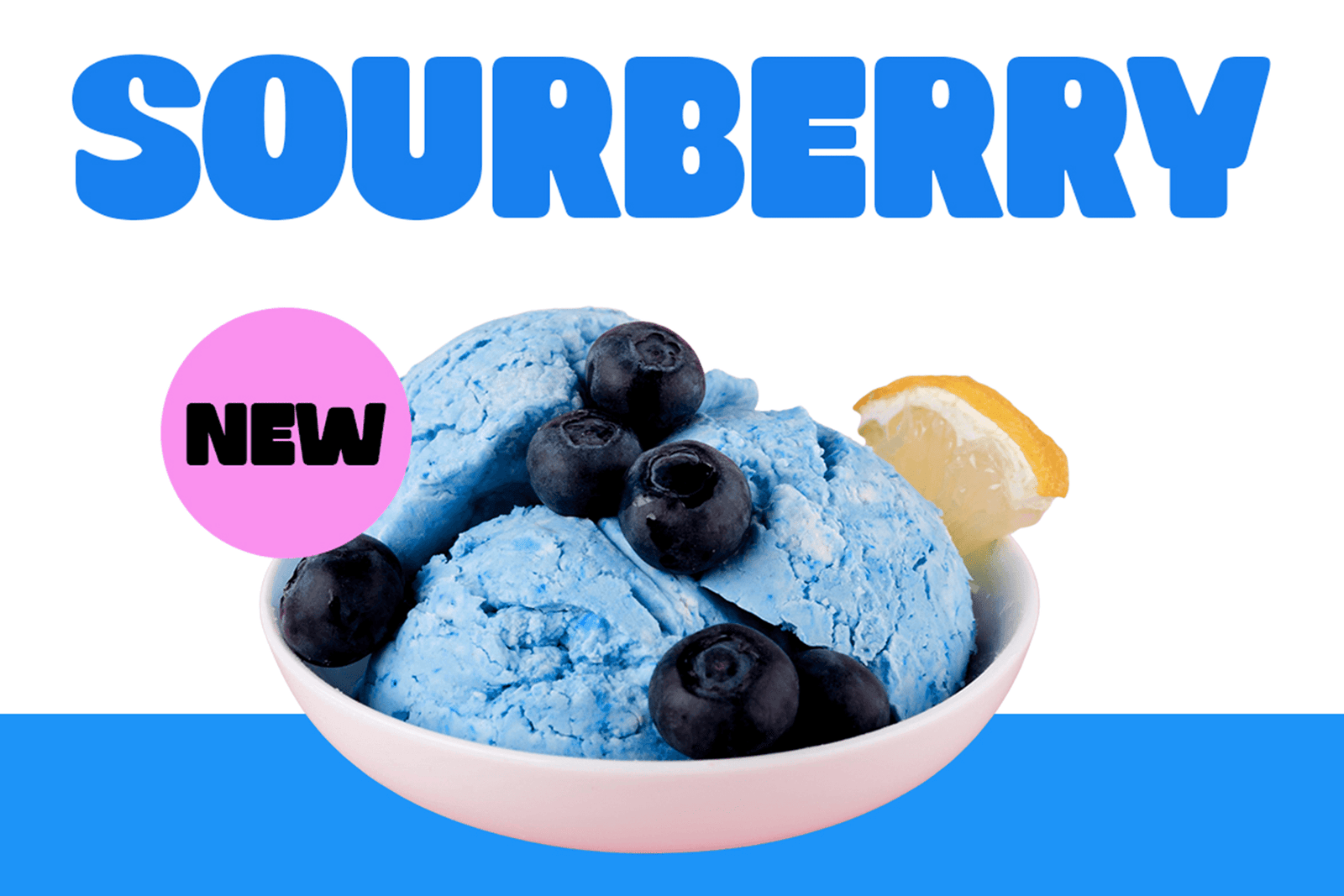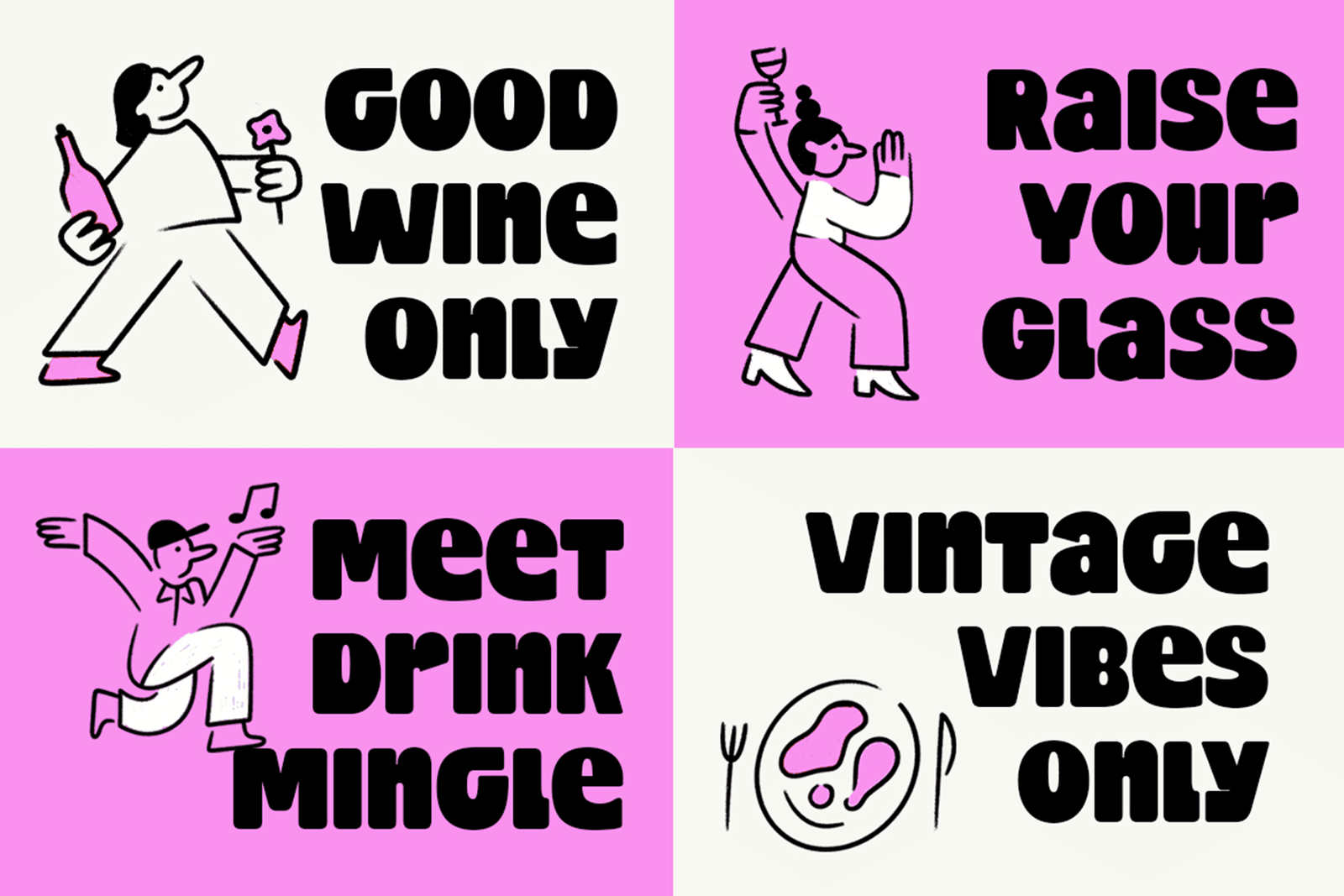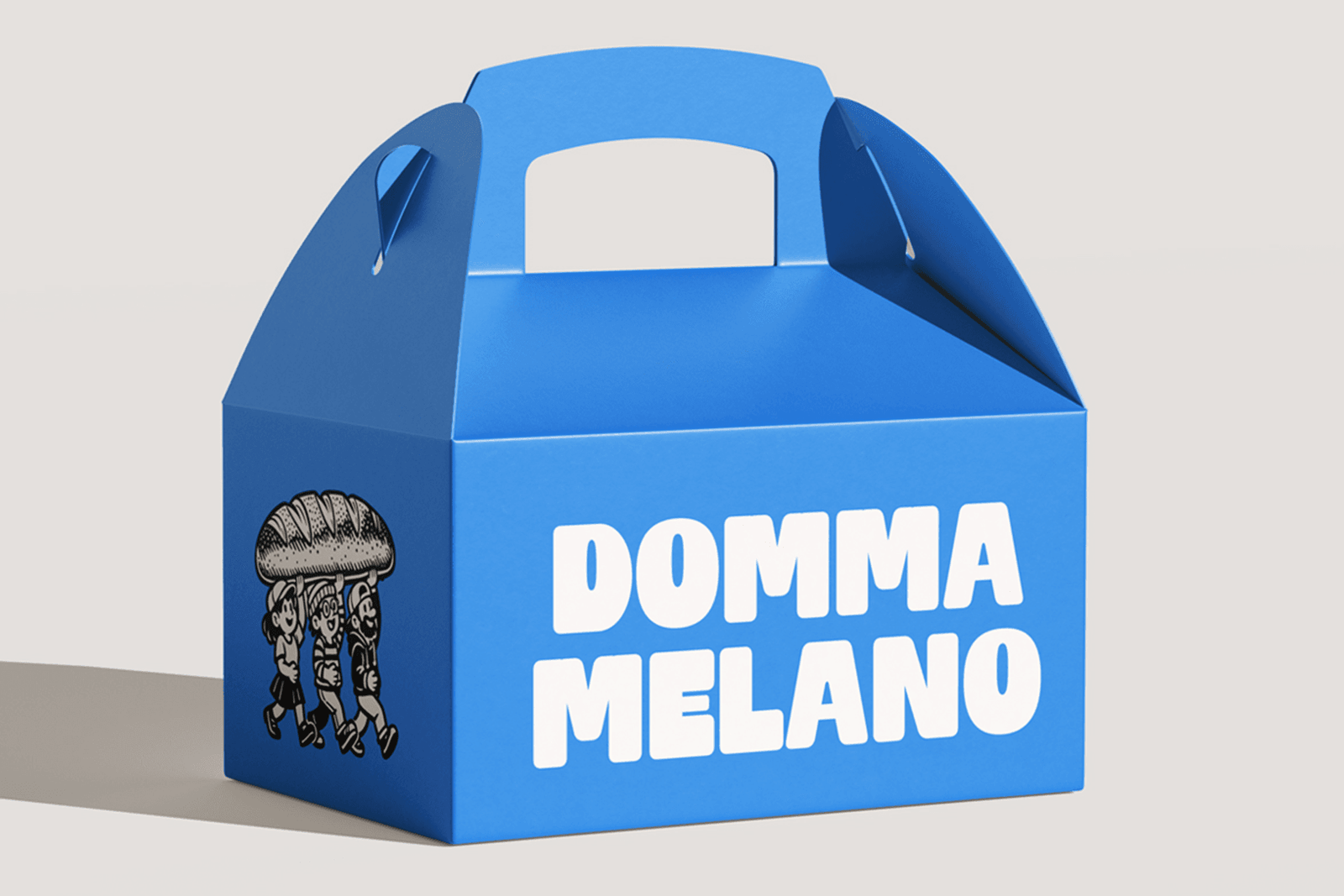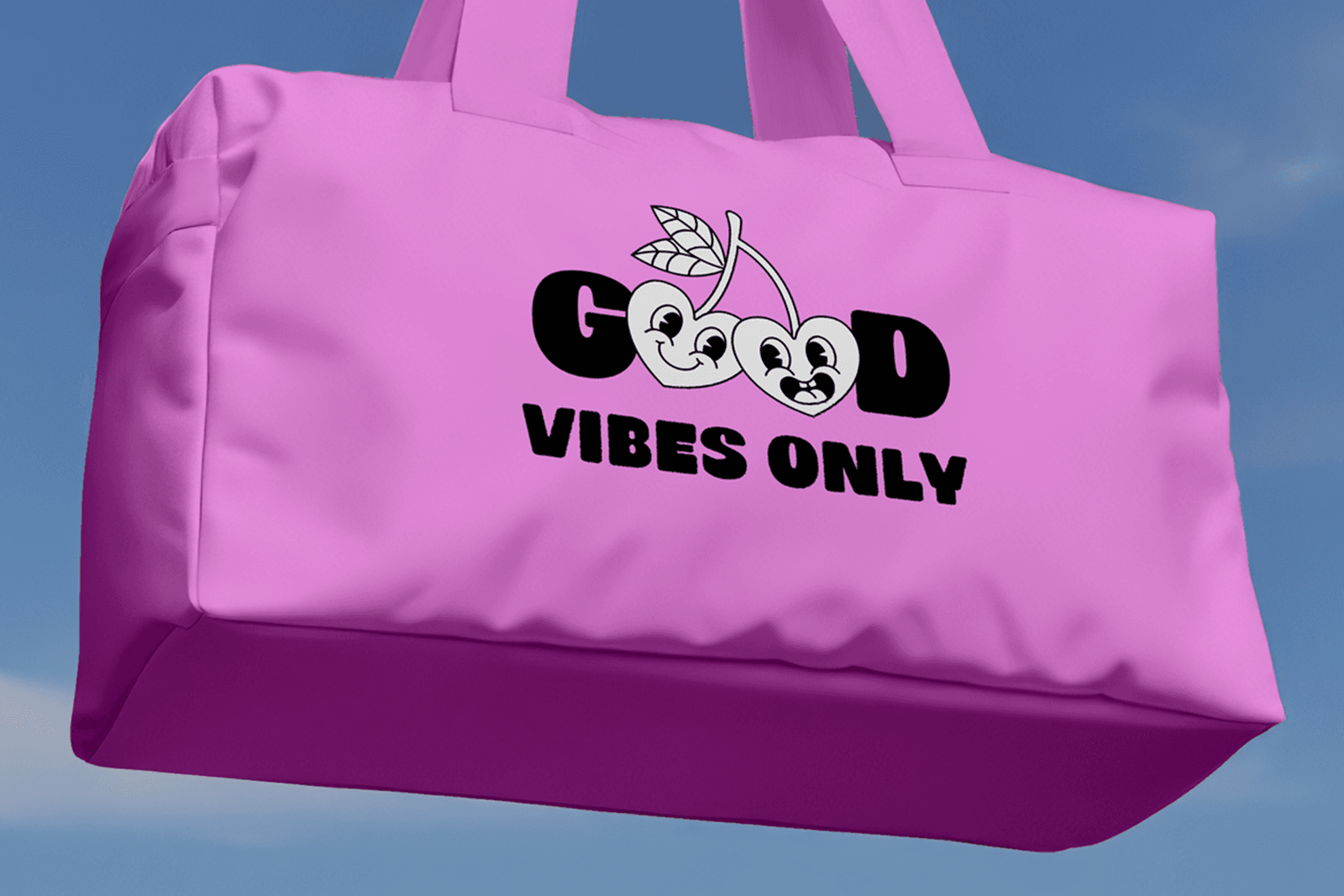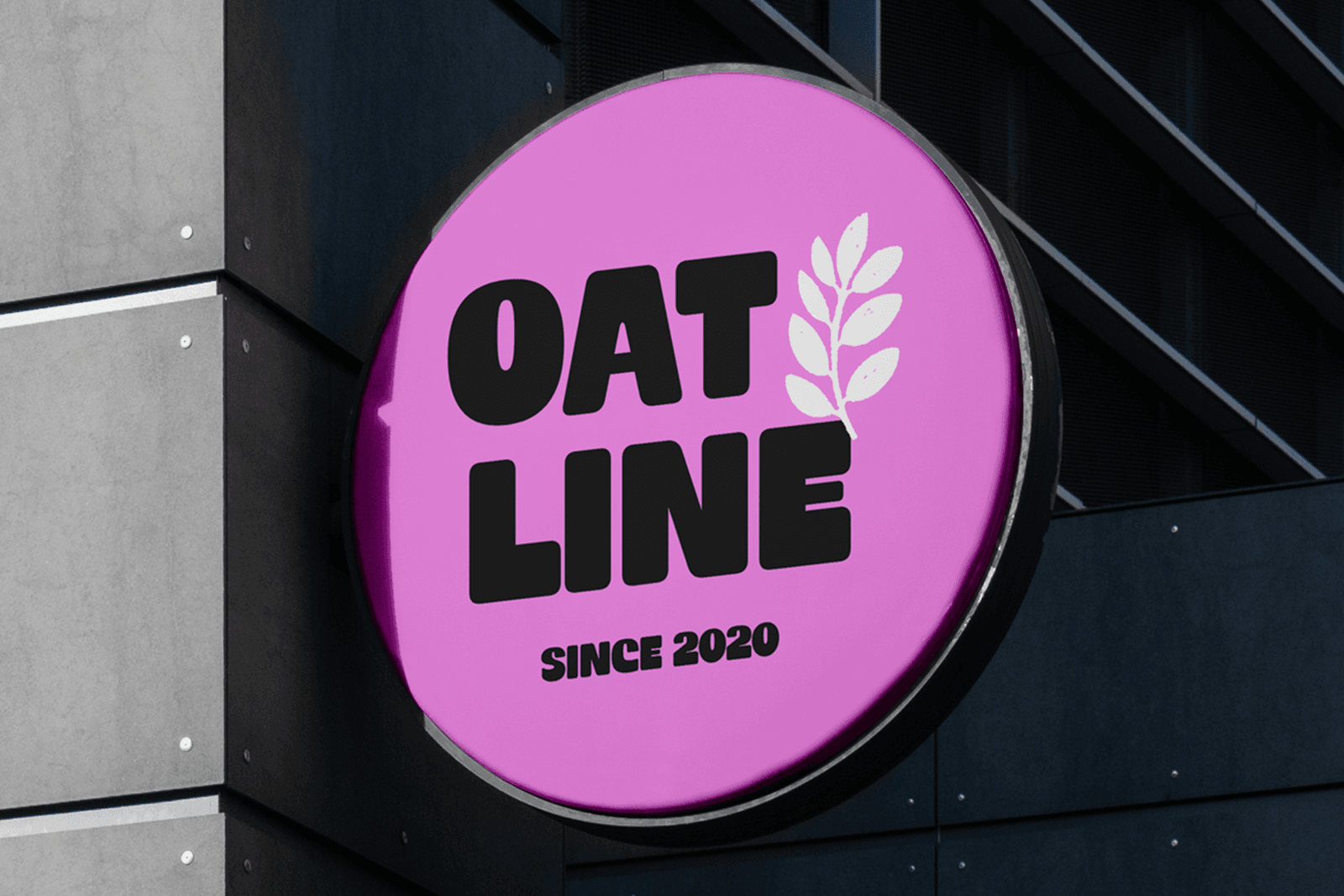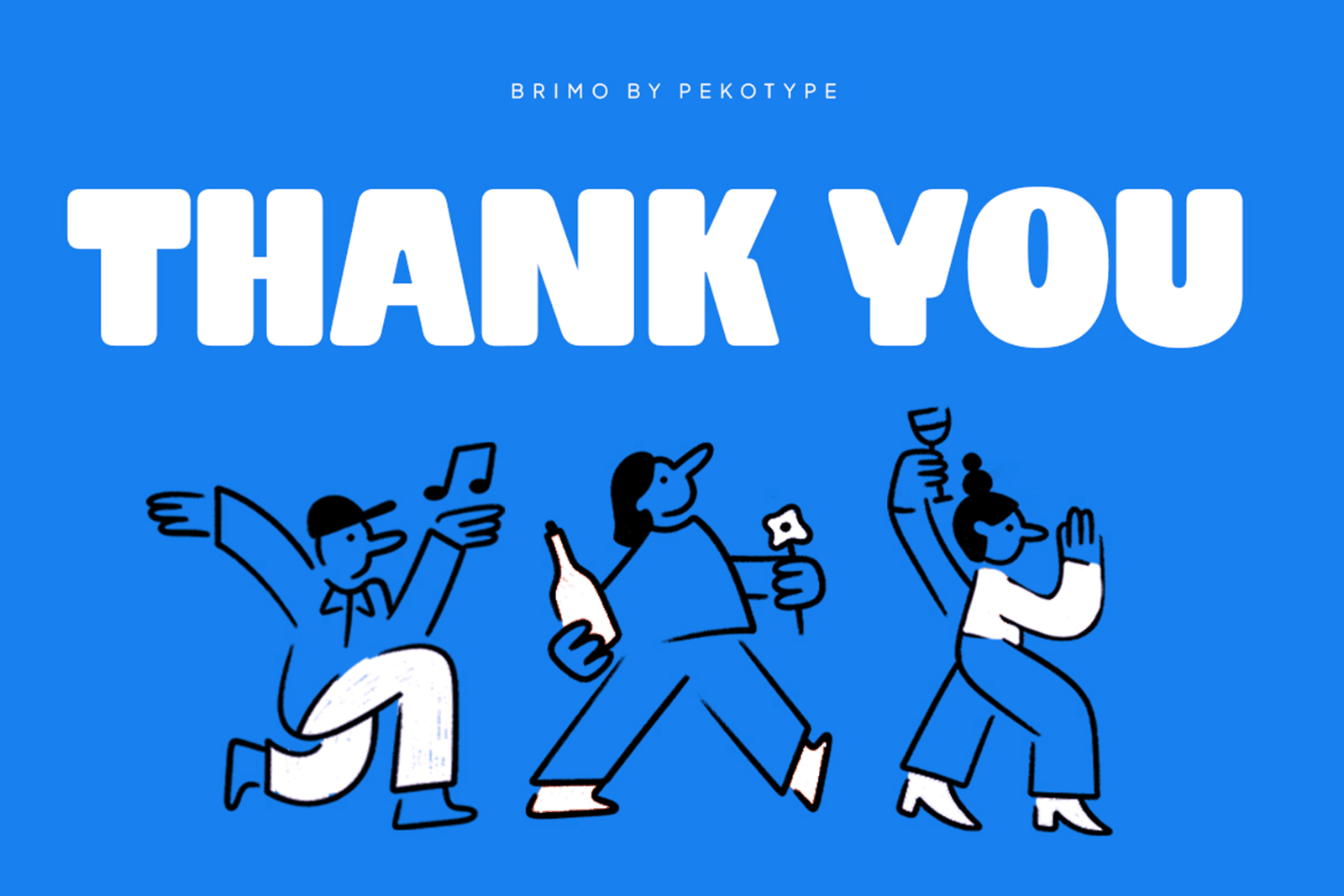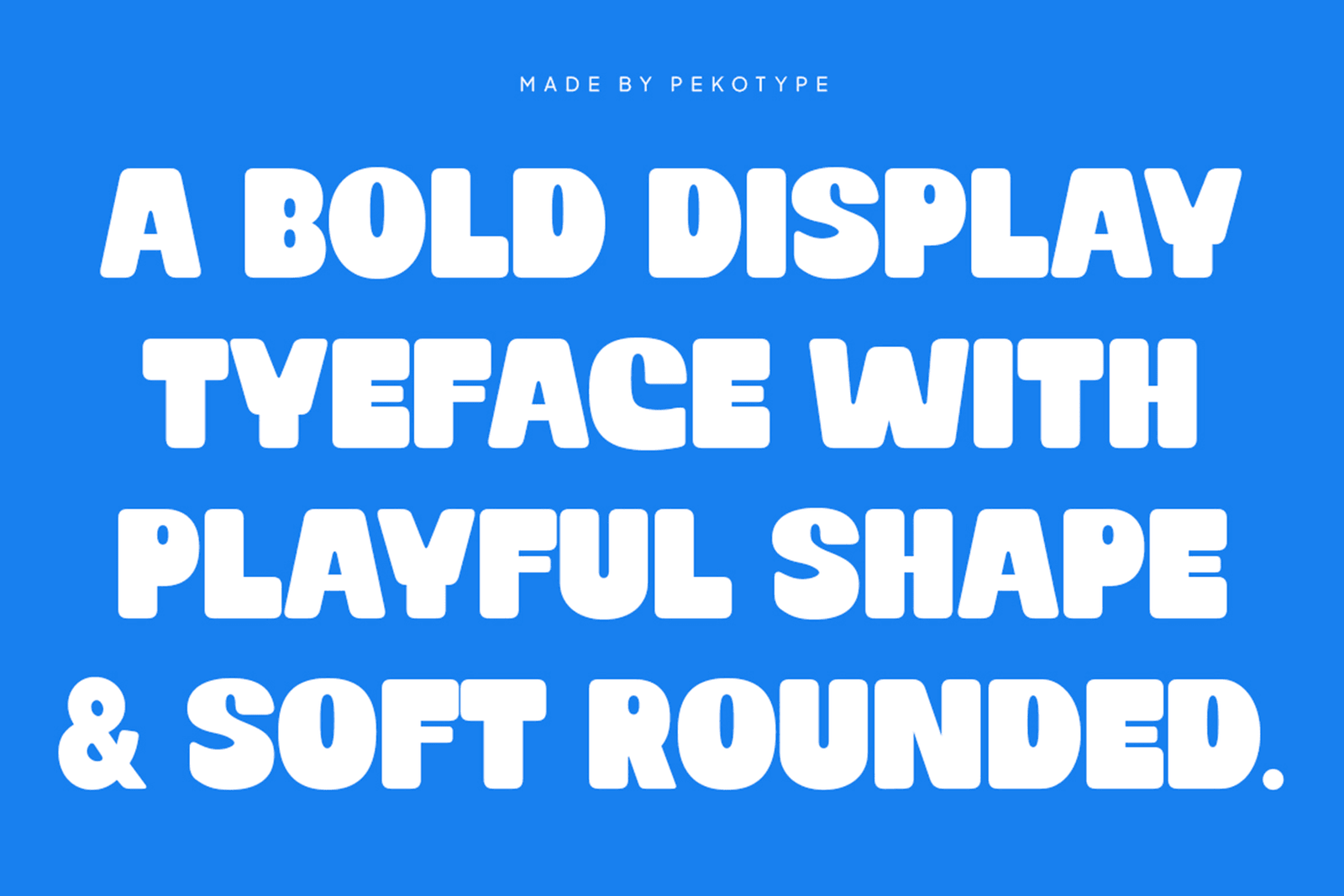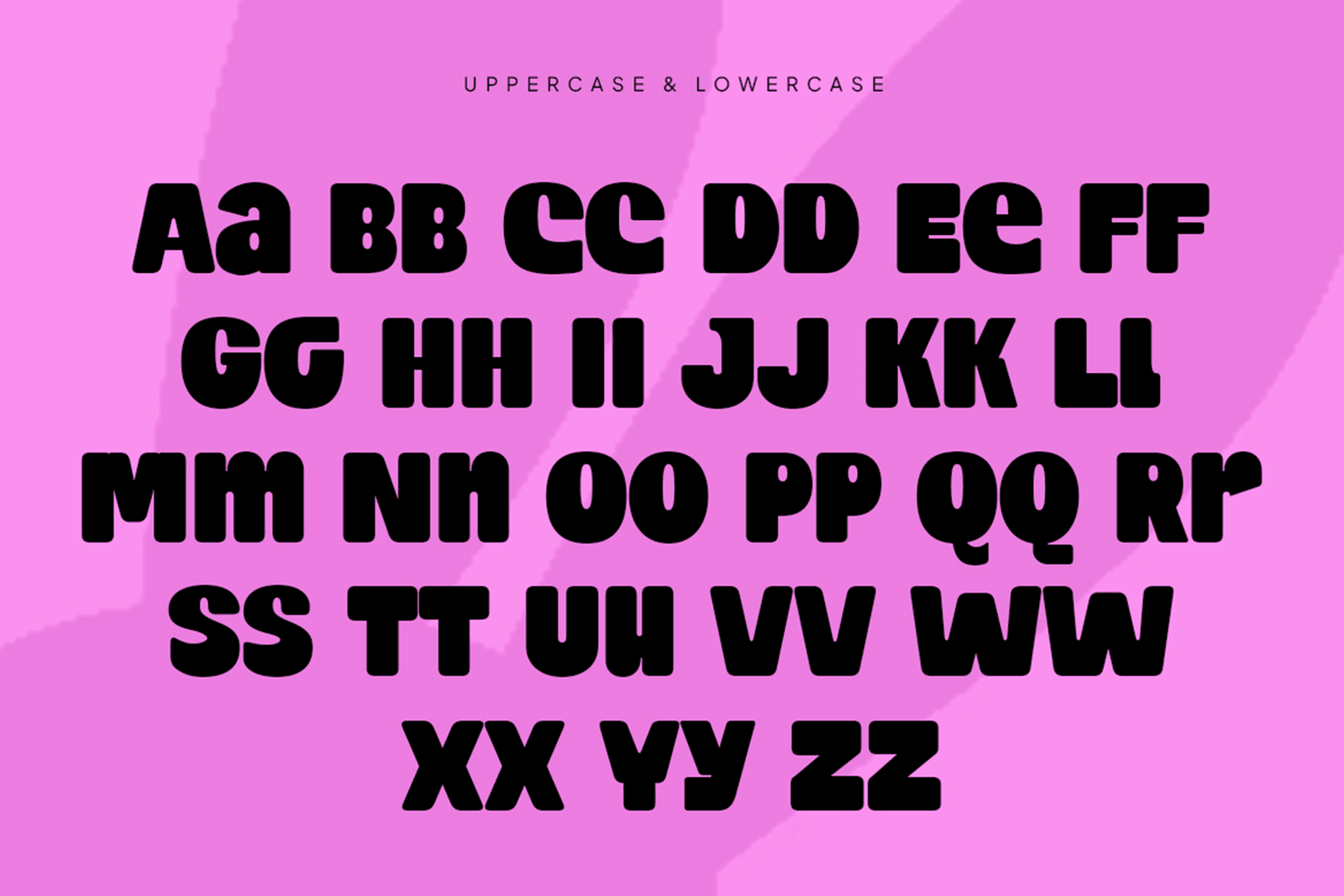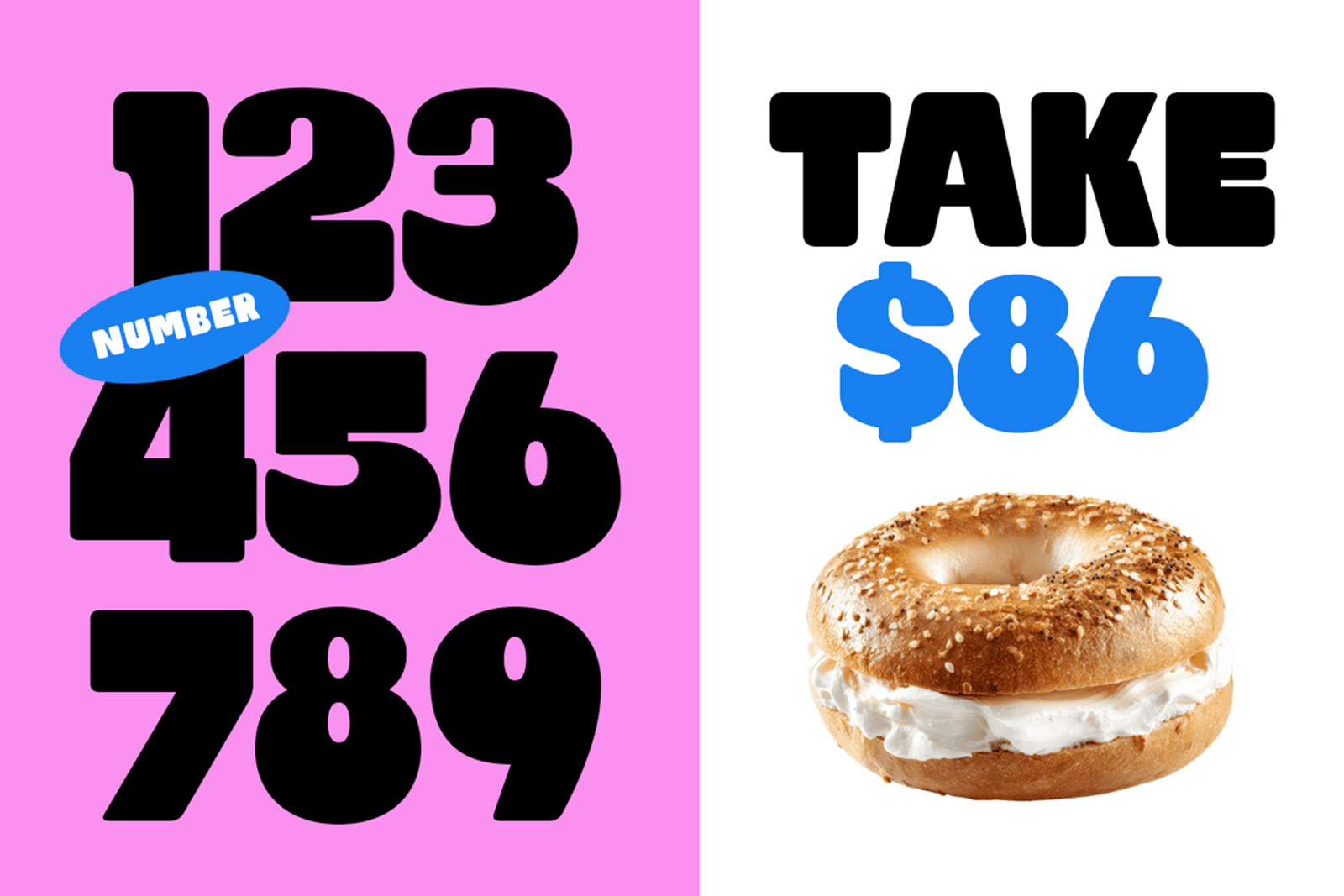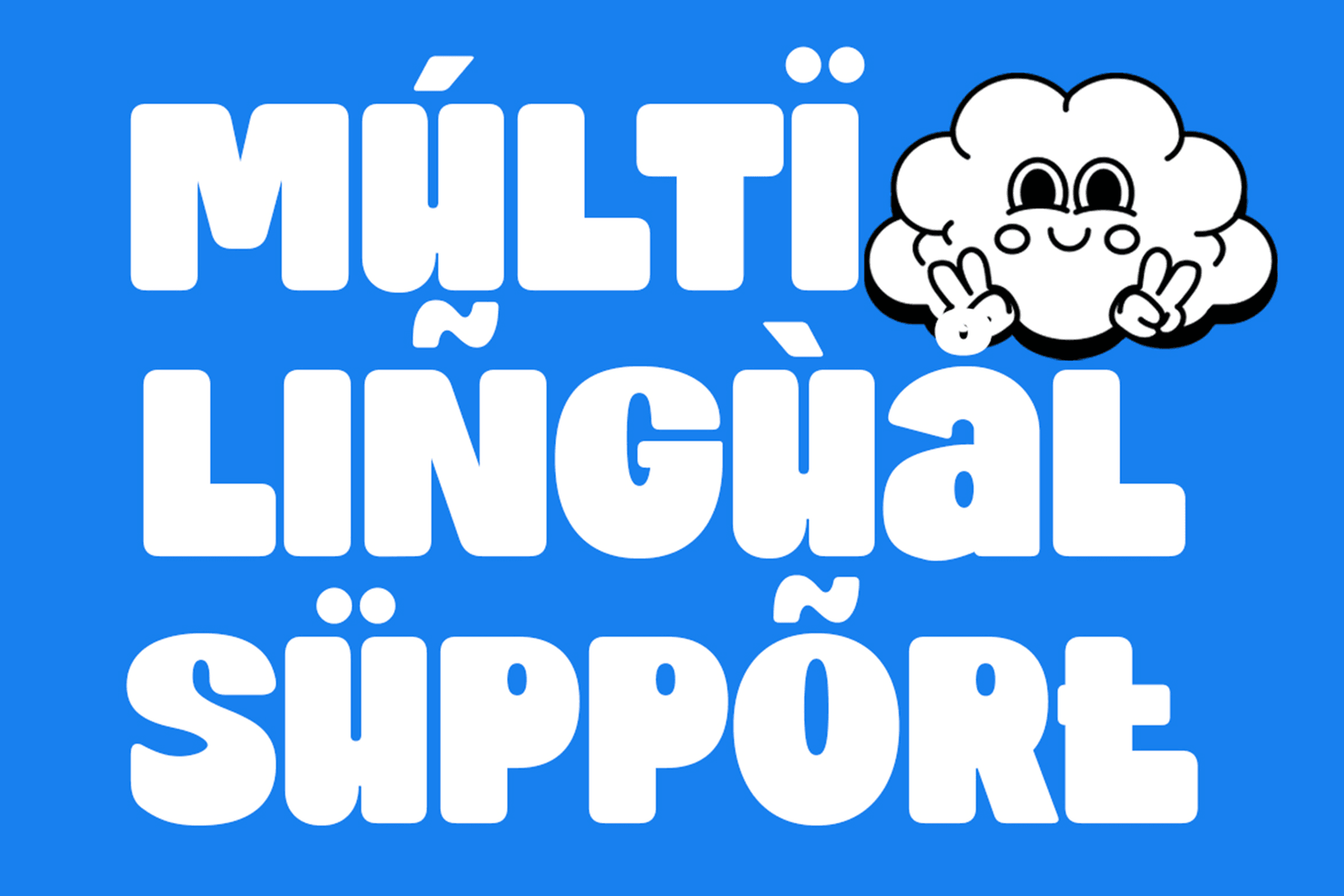
BRIMO font is a bold rounded display font with a fun and friendly personality. Its chunky shapes and soft corners create a playful look that feels energetic, approachable, and easy to notice, making it perfect for designs that want to stand out without feeling too serious.Great for branding, logos, packaging, stickers, café and food projects, social media graphics, posters, signage, merchandise, and promotional materials. Whether you're creating a modern snack brand, a fun campaign, or colorful lifestyle content, BRIMO font adds a cheerful and memorable touch to your design.Features:
• Uppercase & Lowercase
• Number, Symbol, & Punctuation
• Multilingual